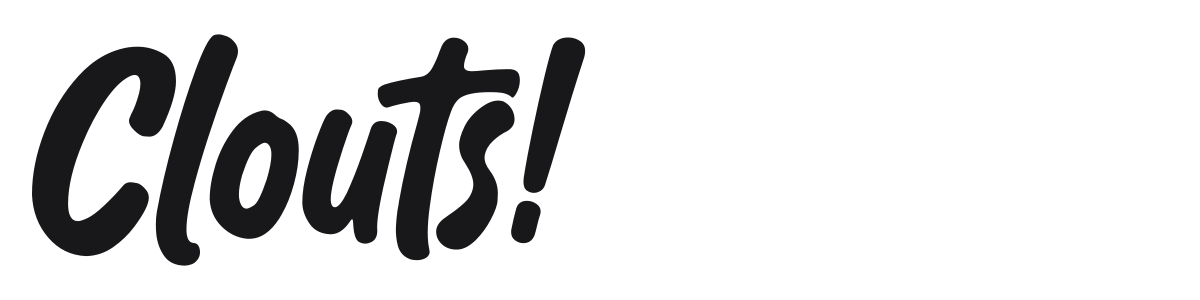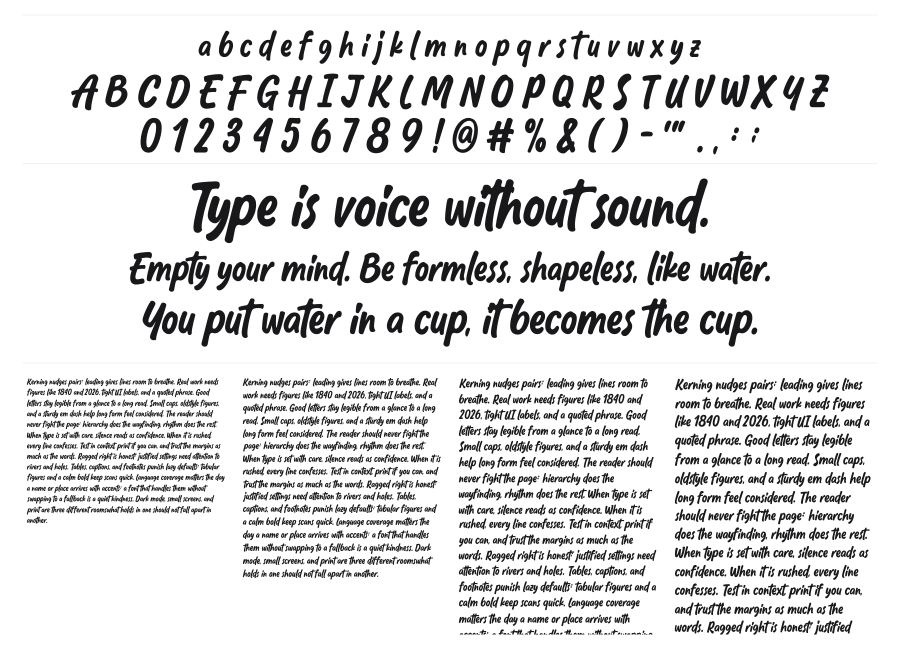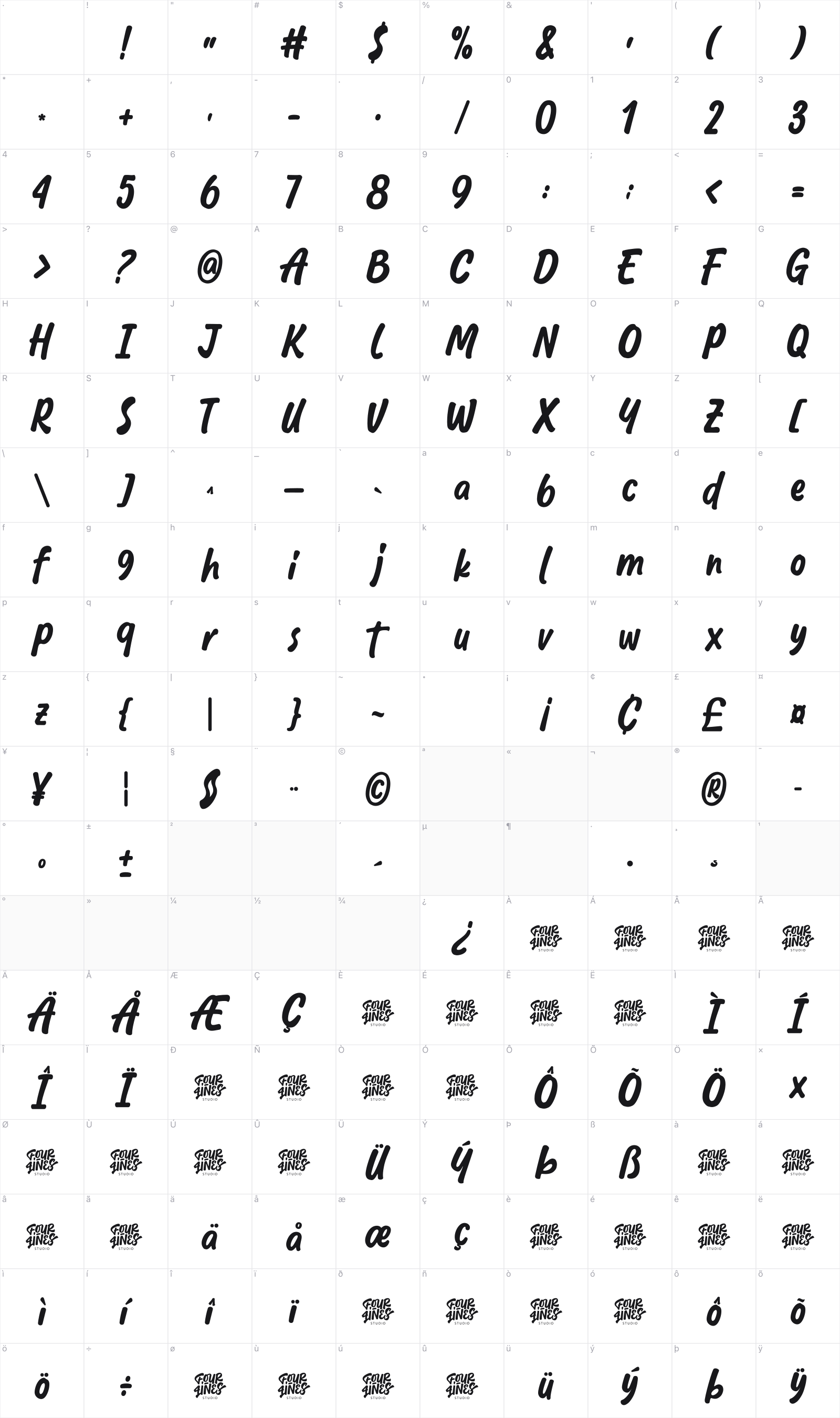
Clouts!
Clouts! is a bold casual script with a thick, marker-like stroke and a strong forward lean. The connected letters flow with the looseness of confident hand-lettering, landing somewhere between a sports logo and a street-food sign. It carries plenty of energy without trying too hard.